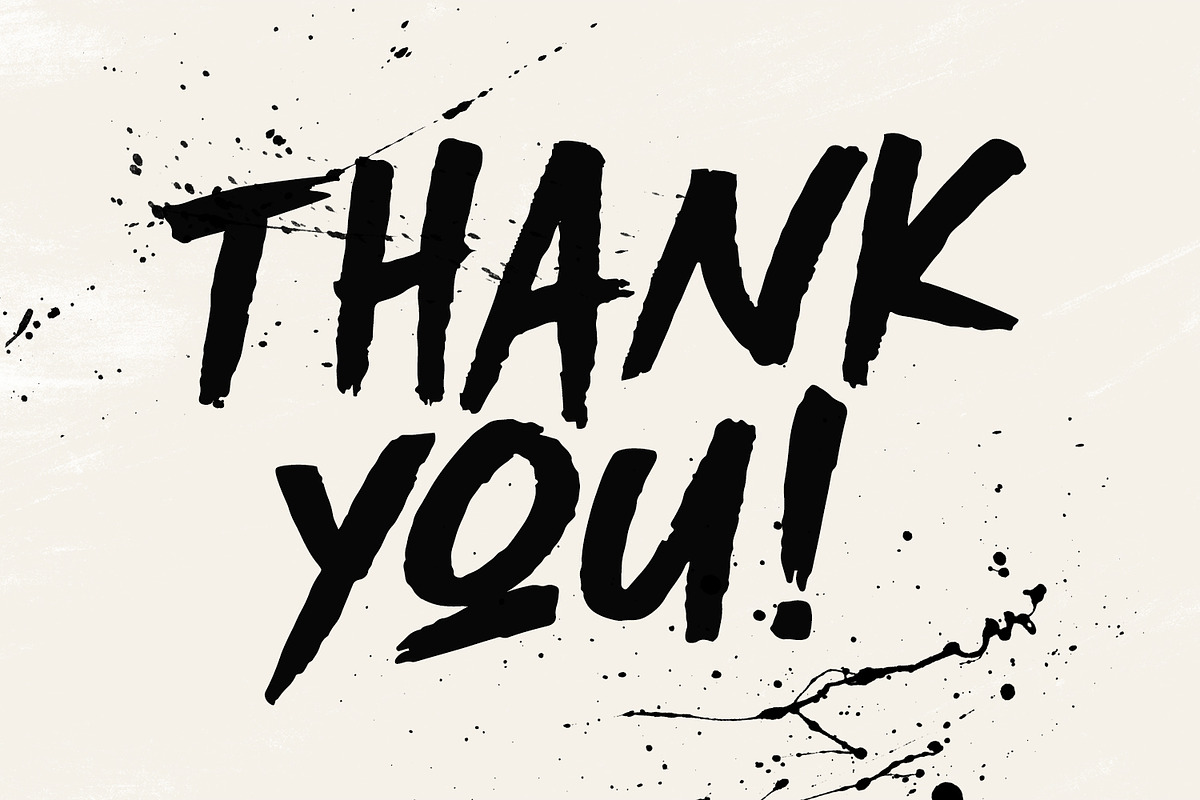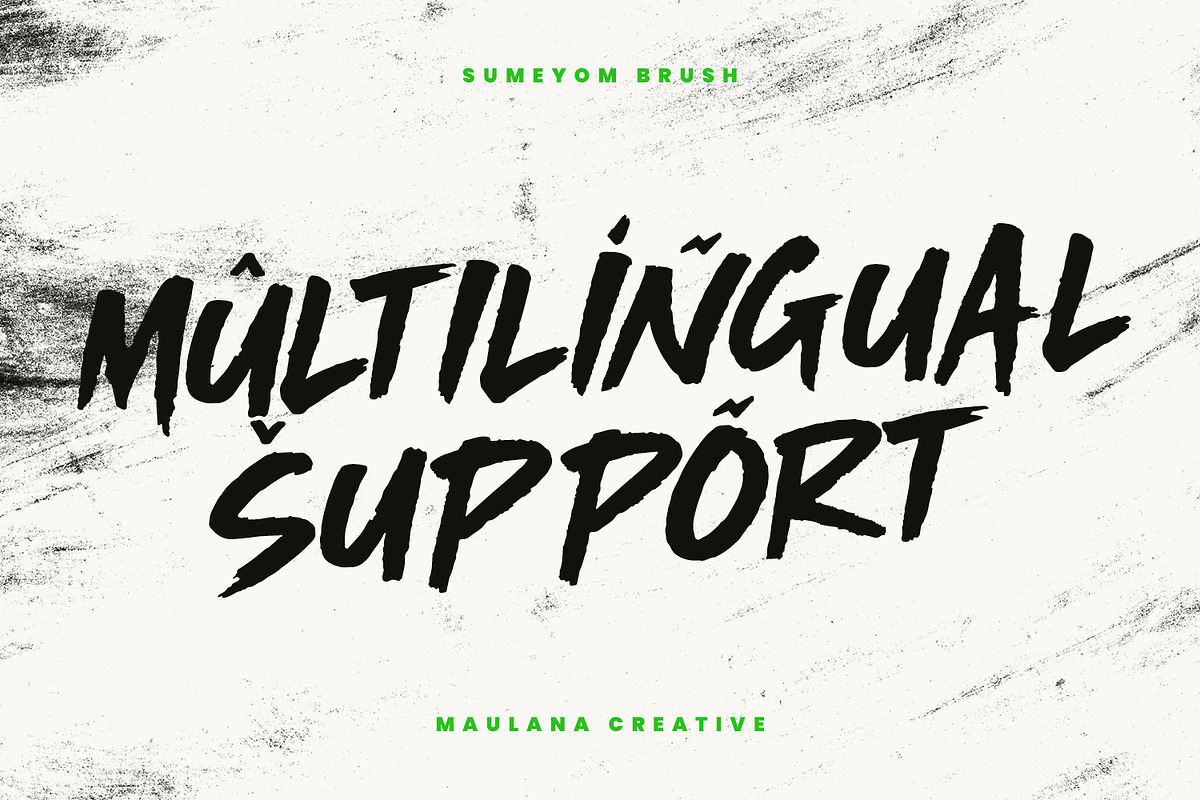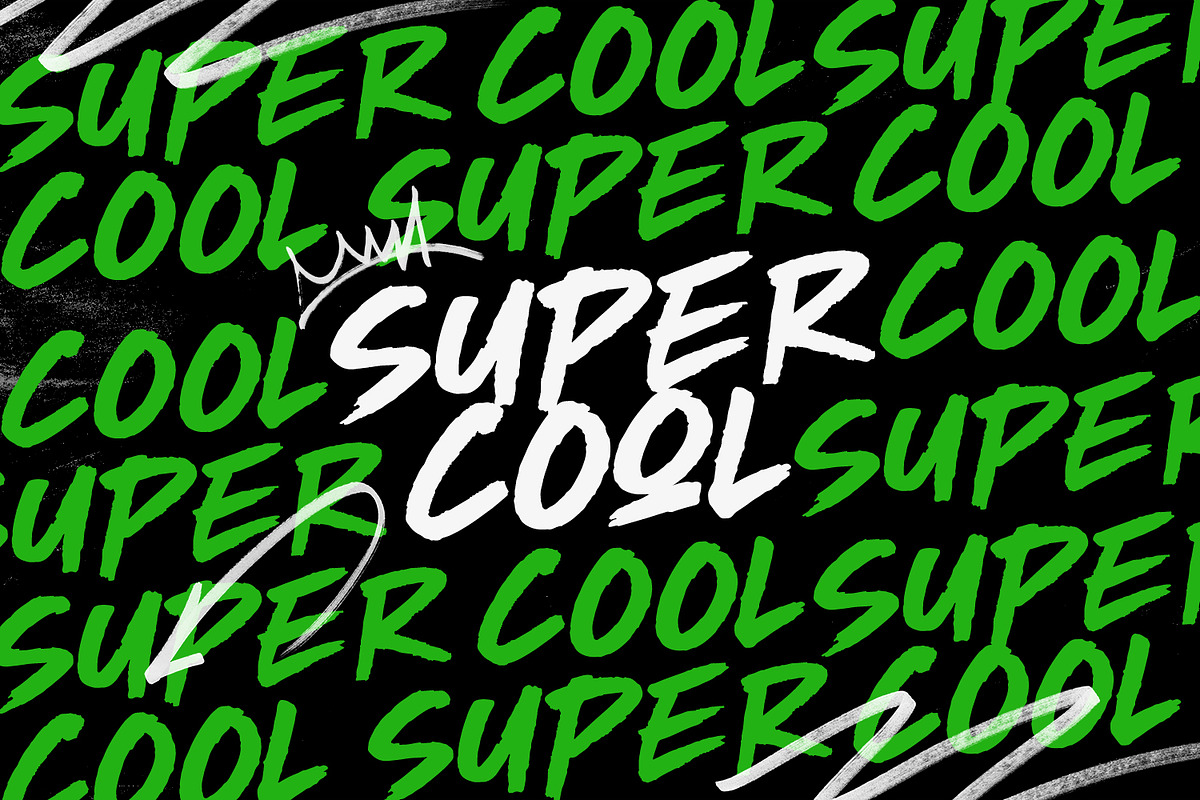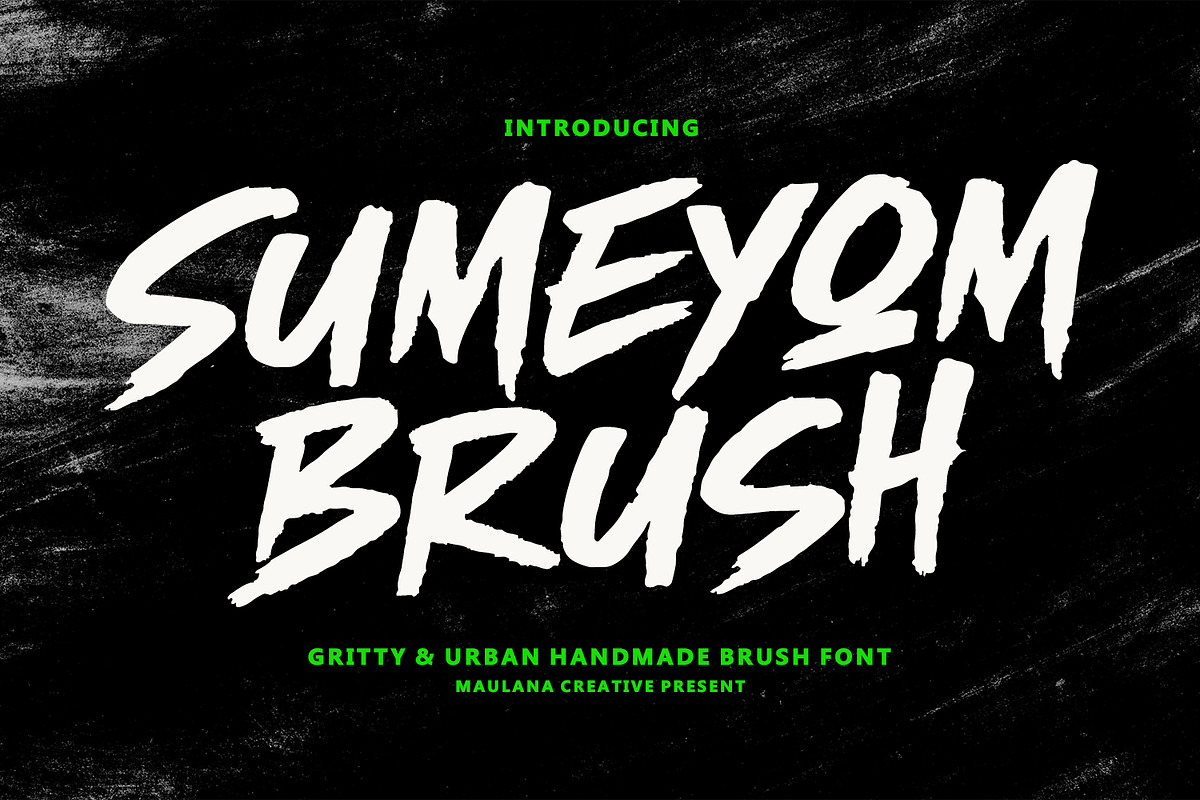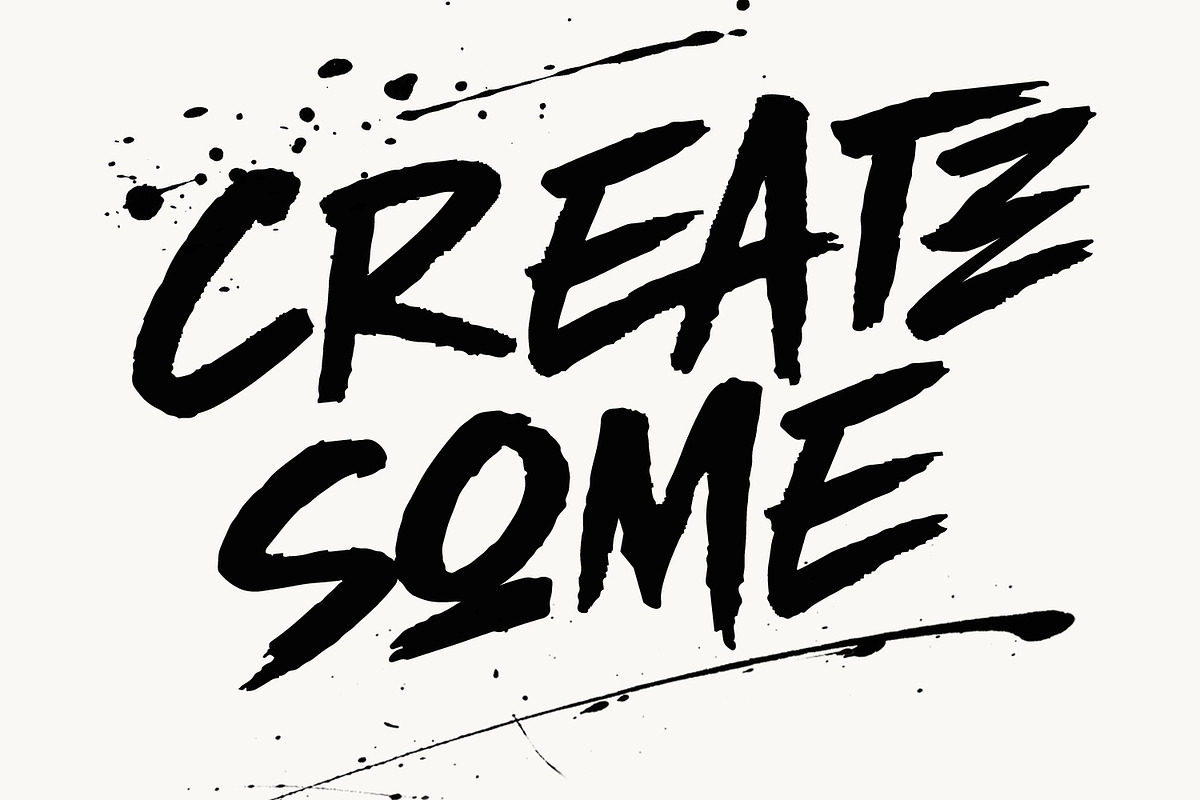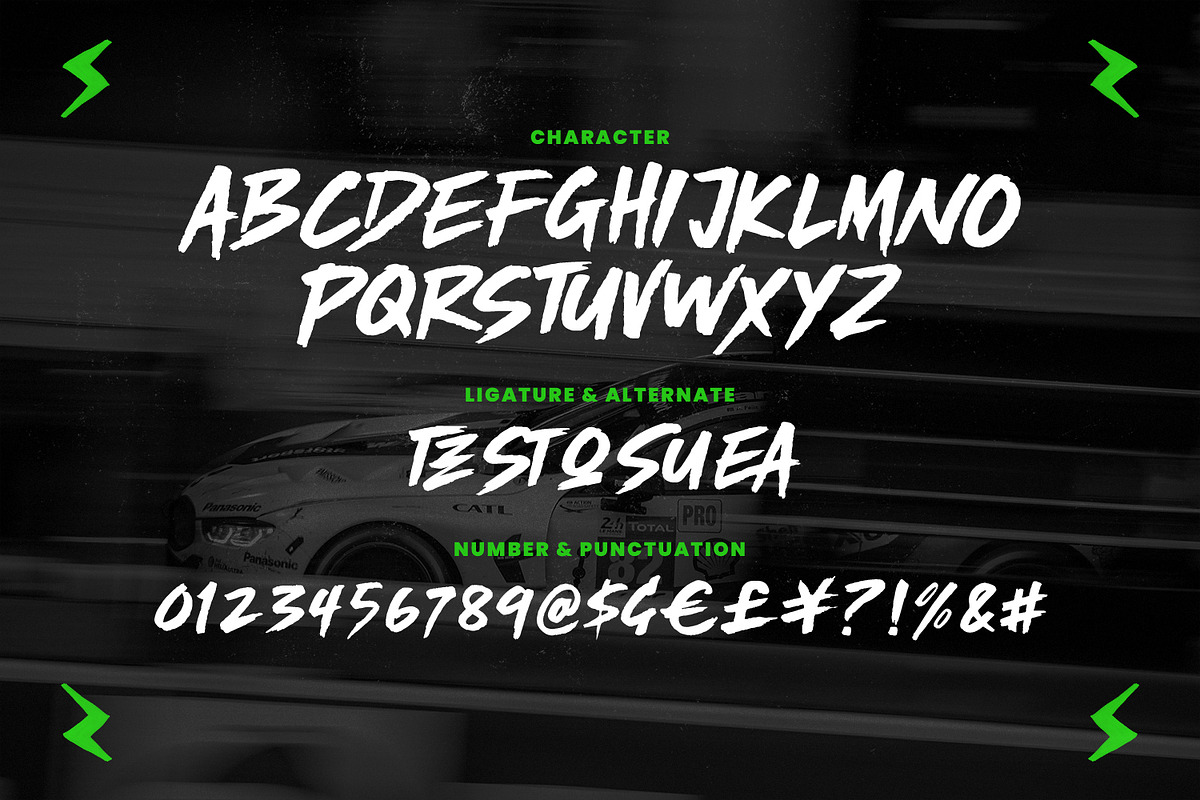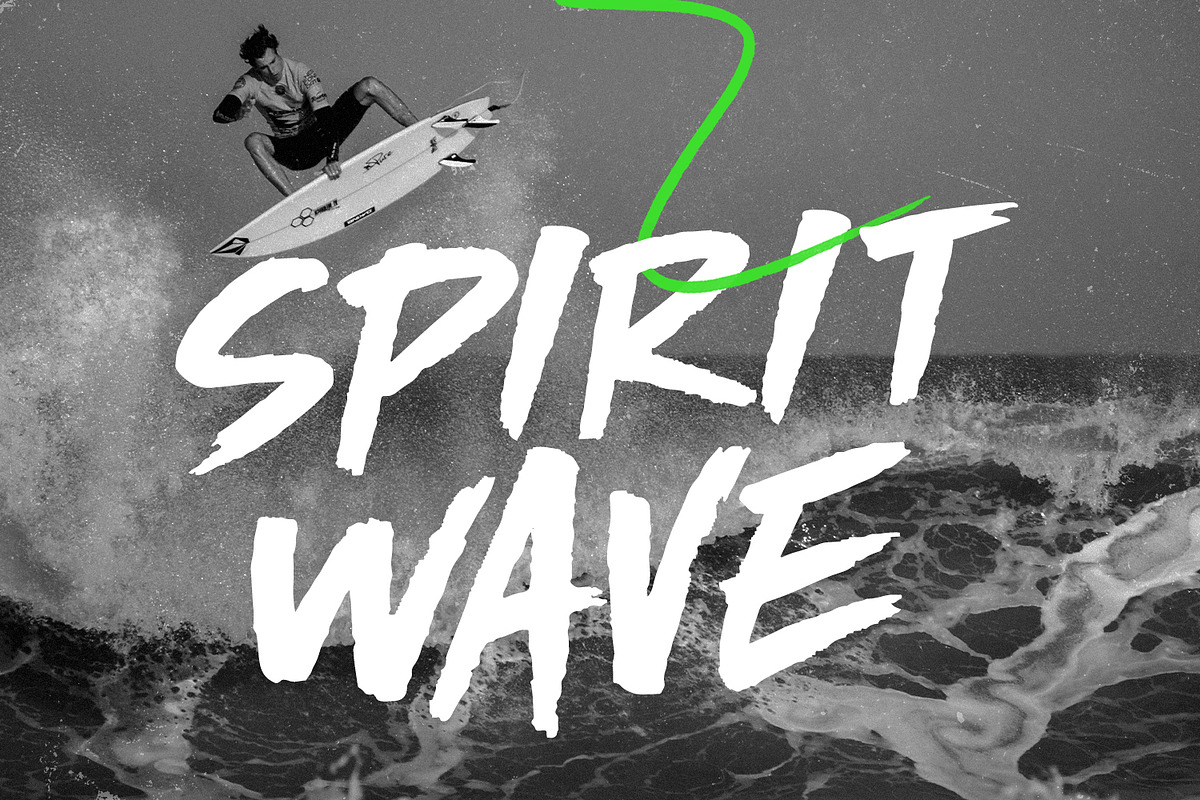
Sumeyom Gritty Urban Handmade Brush
Sumeyom is a bold, aggressive, and handmade brush font designed to bring an authentic street style aesthetic to your creative projects. Featuring heavy dry brush textures and fast, sweeping strokes, this font is perfect for high impact branding, sports graphics, urban, and edgy editorial layouts. With its built-in ligatures and multilingual support, Sumeyom provides a natural, hand painted look that demands attention and communicates raw energy.
- Ligature and Alternates